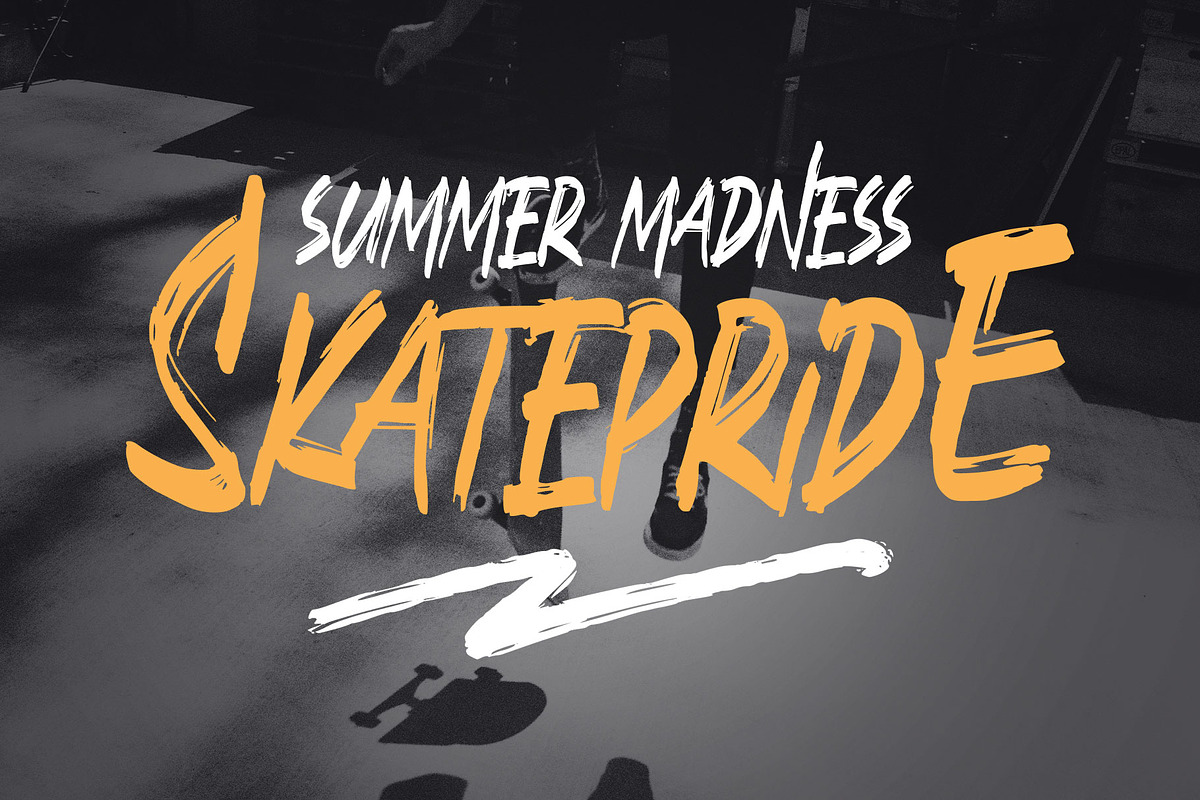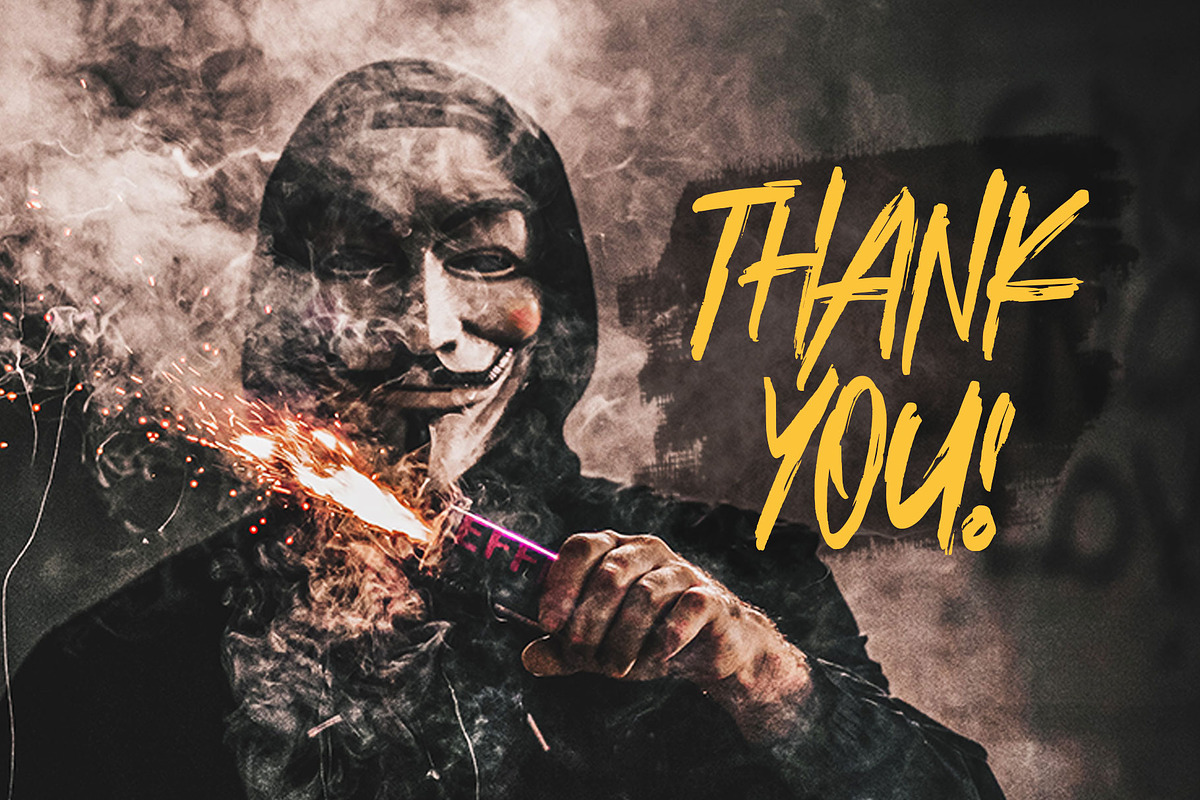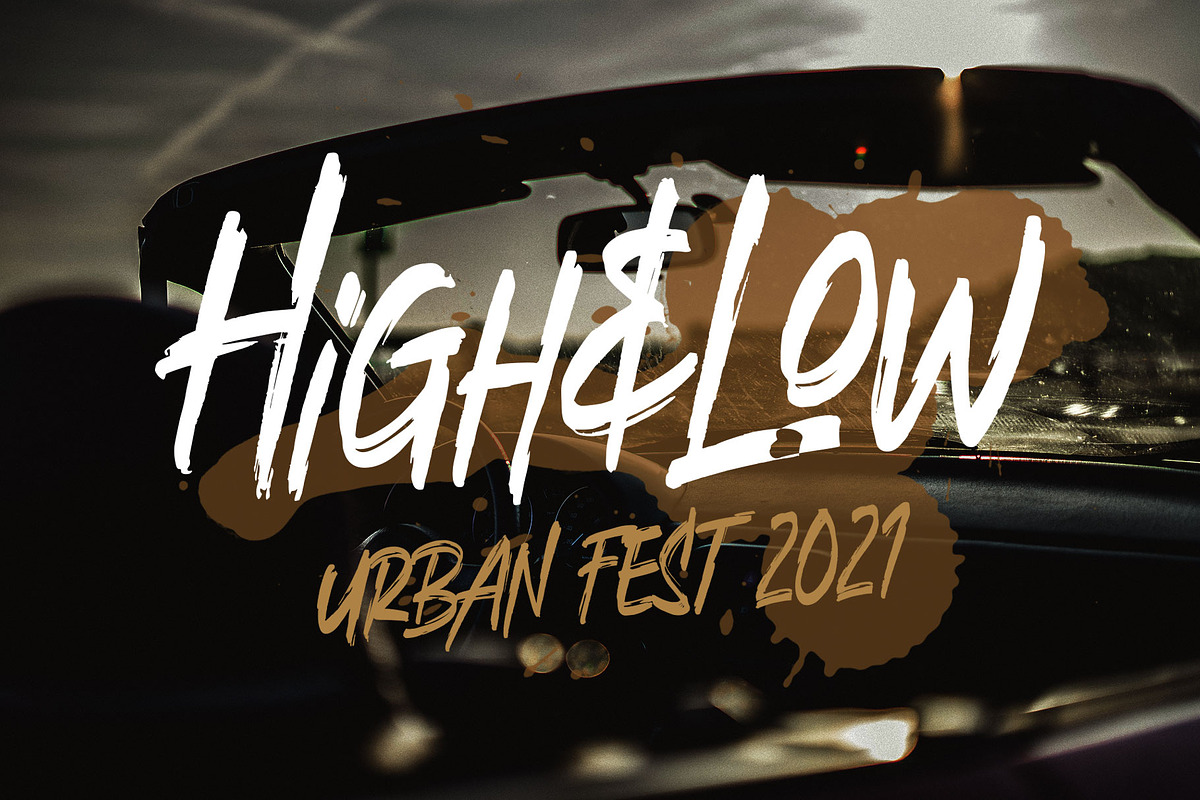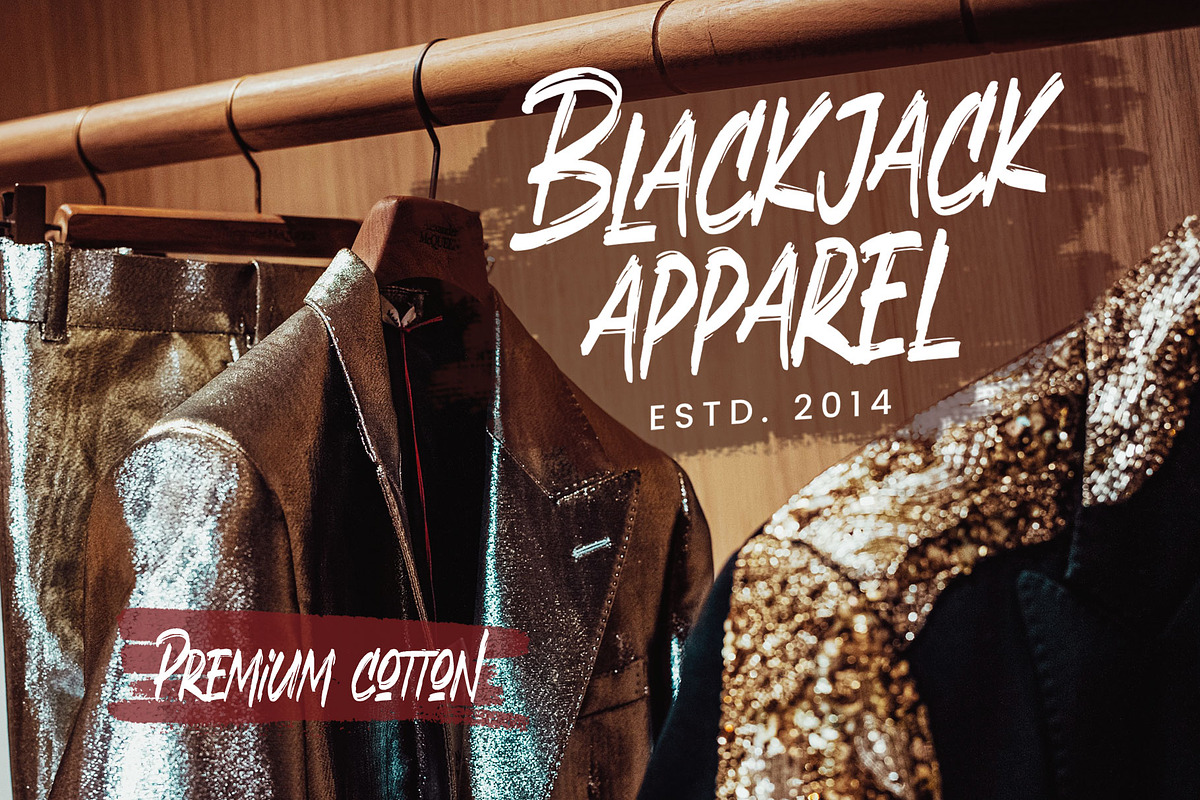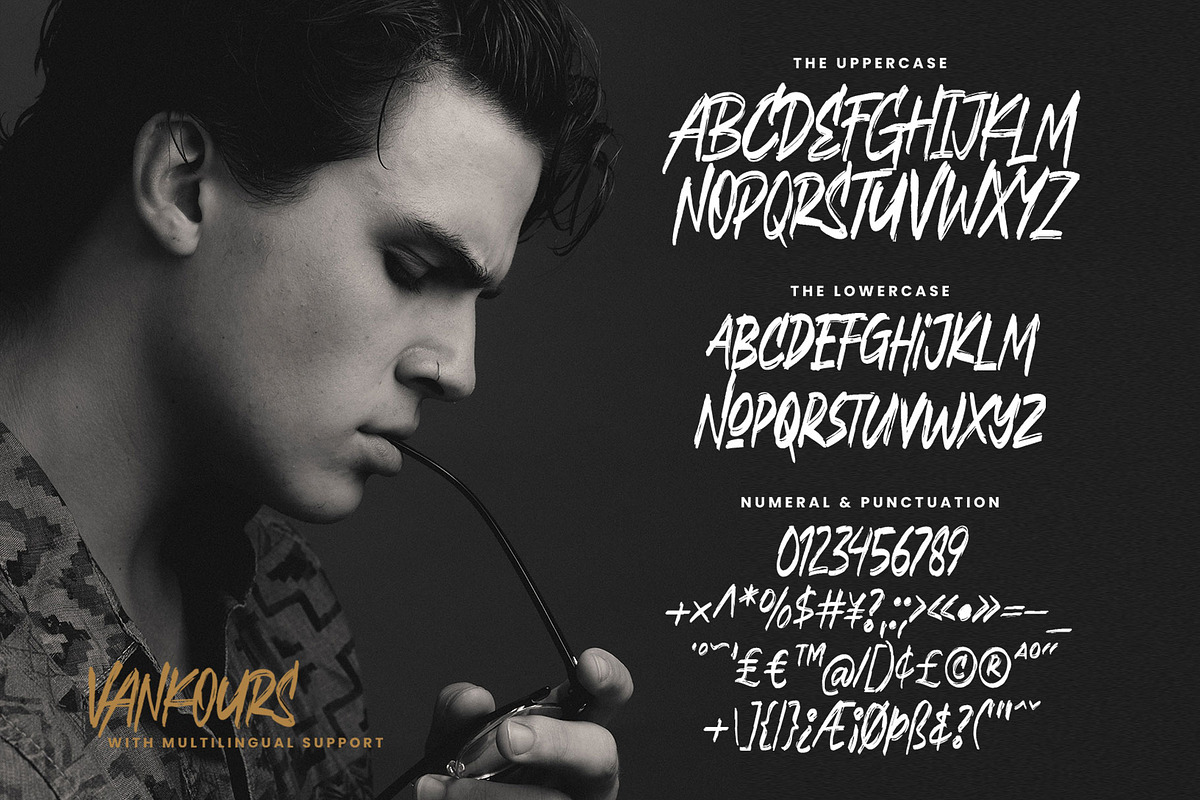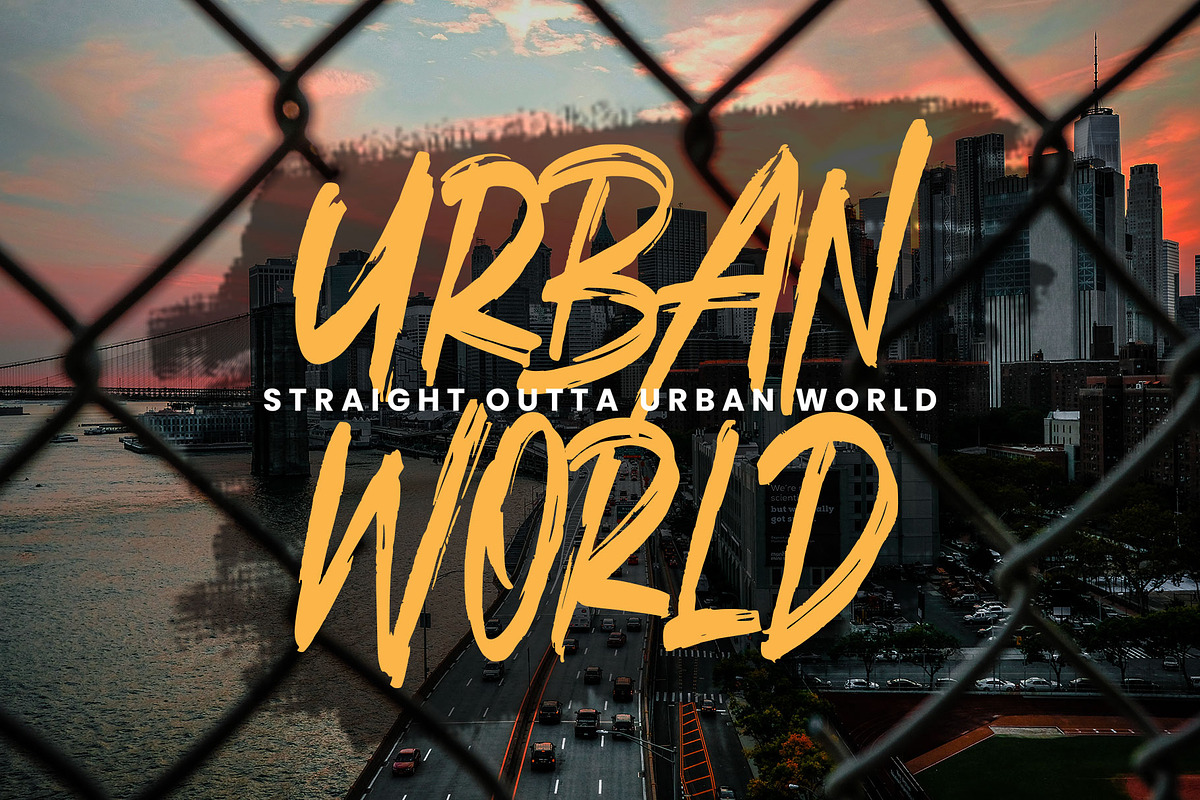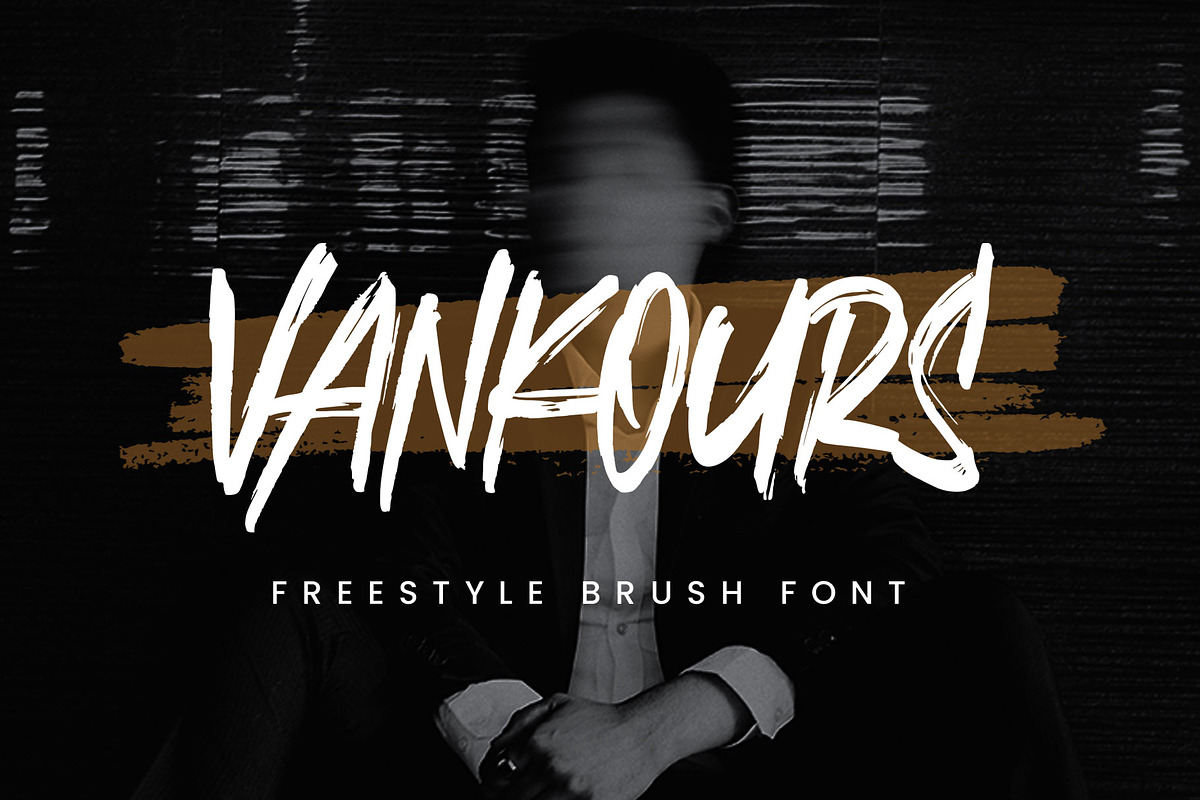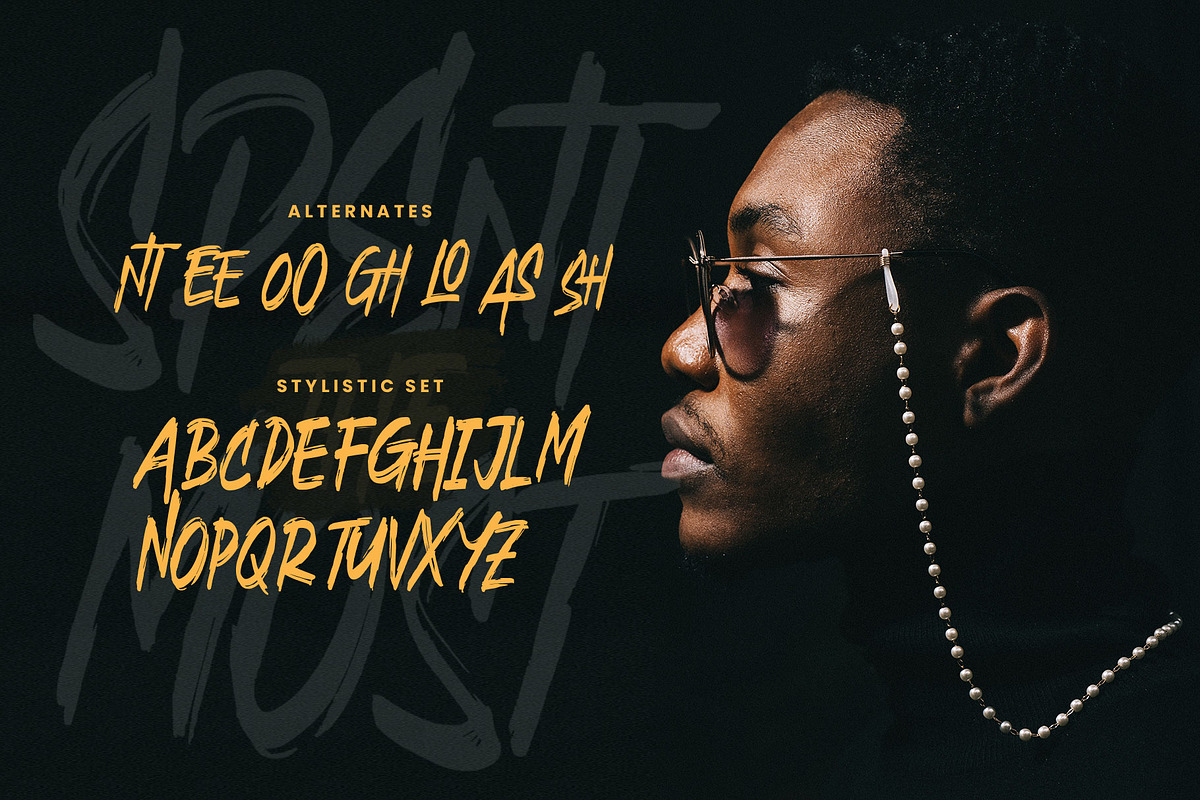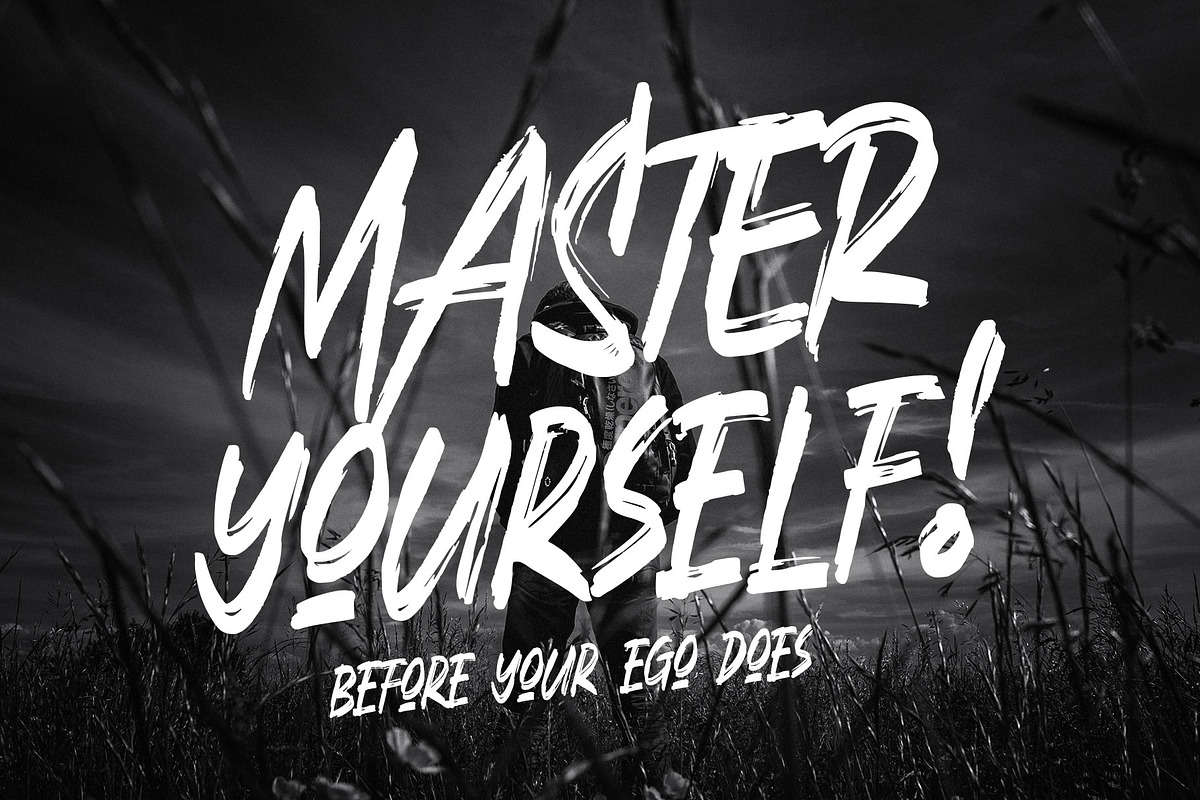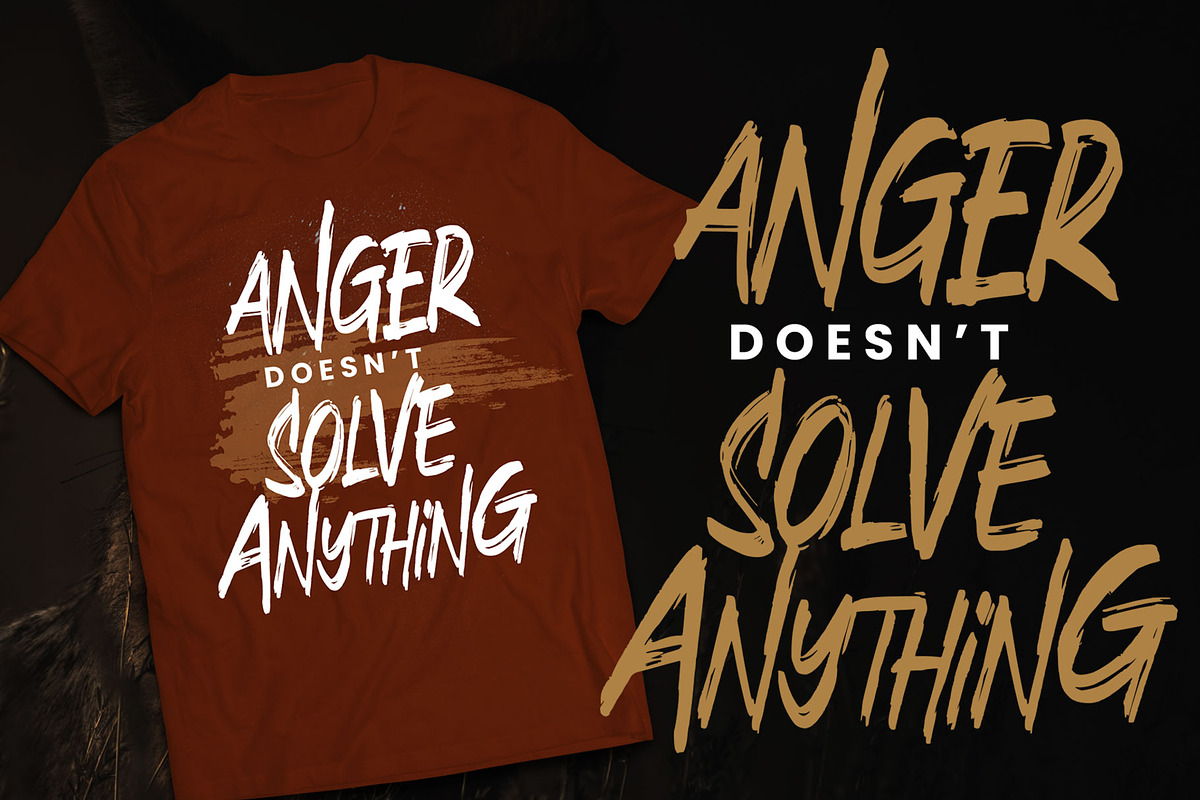
Vankours
Vankours is a freestyle brush font, created with expressive brush strokes, keeping the details and give an eye-catchy combination between the uppercase and small caps, also complete with alternates.
Vankours is perfect for many themes such as urban, thriller, sporty, vibrant, and youth taste! Good choice to use this font for Logo, Merchandise, Brand imagery, Apparel, Packaging, Simple quotes, and many more!
- All-caps font
- Detailed brush font